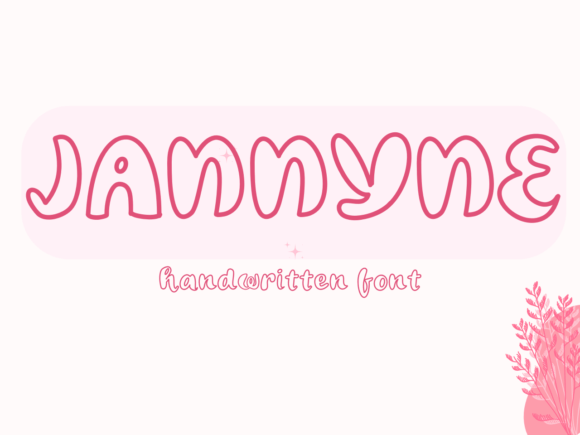
Journey into a world of enchanting script fonts – introducing Jannyne Font, a remarkable creation by Pukka De. Designed with a touch of sweetness and a dash of friendly charm, Jannyne Font is the epitome of handwritten elegance. Its natural and uniquely beautiful style seamlessly adapts to a myriad of design projects, making it the perfect choice for those seeking a font that sparks creativity and boundless imagination.
Embark on a design odyssey with Jannyne Font, where your visions take center stage. Let your imagination soar as you craft captivating banner designs that leave a lasting impression. Whether you're a seasoned graphic designer or just starting your design journey, Jannyne Font is your trusted companion, guiding you towards design brilliance. Discover endless possibilities as you create stunning logos, elegant invitations, eye-catching social media posts, and captivating website designs.
With Jannyne Font, prepare to be swept off your feet by its undeniable charm. Its gentle curves and playful strokes bring a touch of whimsy to your designs, while its versatility allows you to effortlessly adapt it to any project, big or small. Whether you're designing for a playful children's book, an enchanting wedding invitation, or a sleek and modern brand identity, Jannyne Font effortlessly elevates your designs, leaving an indelible mark on your audience.
Unlock the gateway to creativity with Jannyne Font. Its user-friendly nature makes it a joy to work with, allowing you to effortlessly transform your ideas into tangible masterpieces. As you glide through your design process, you'll find yourself effortlessly creating cohesive and visually stunning designs that captivate and engage your audience. Experience the pure joy of seamless design as you watch your visions come to life with Jannyne Font, your steadfast design partner.